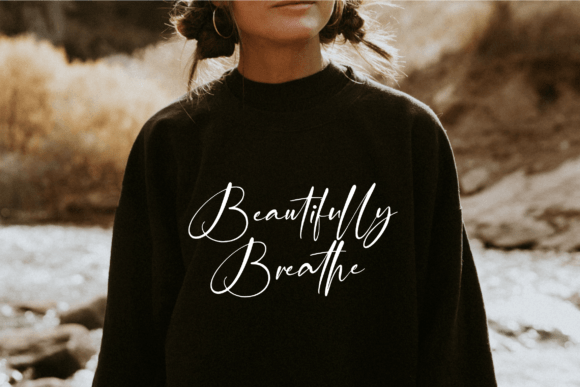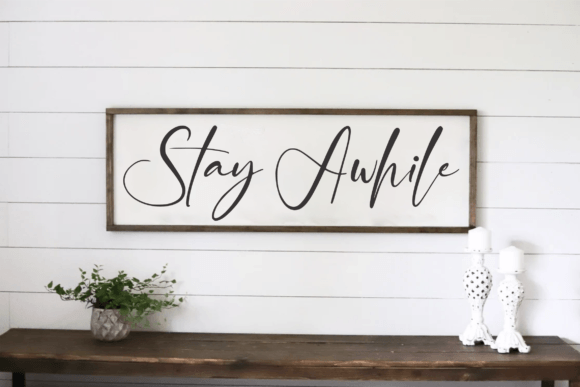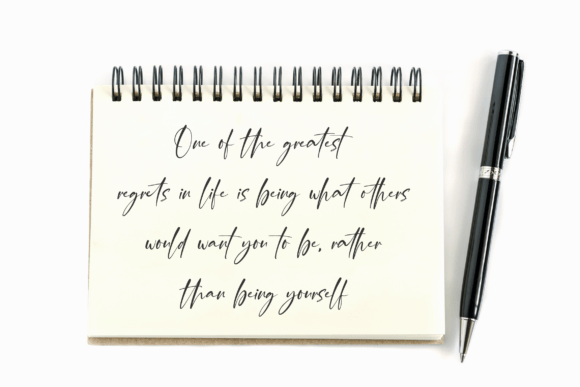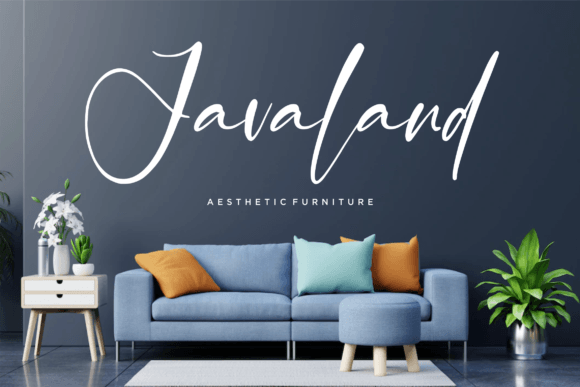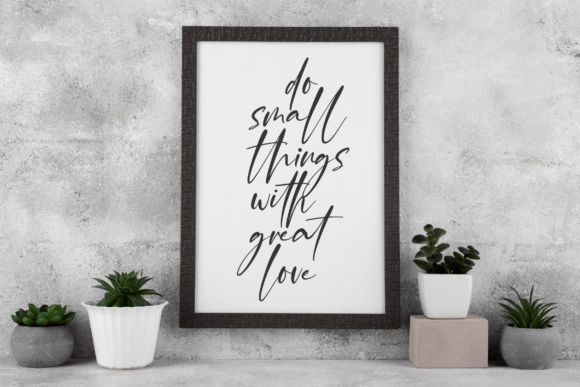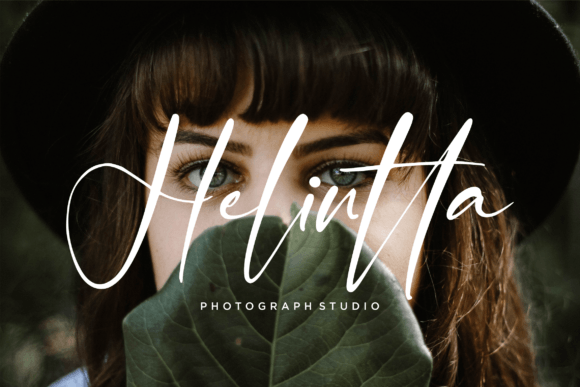
Introducing Hallbothy Font: The Ultimate Handwritten Stylish Font for Creative Projects
In the world of typography, a good font can make all the difference in elevating a design project from ordinary to extraordinary. For designers, crafters, and DIY enthusiasts, finding the perfect font that combines style, elegance, and versatility can be a daunting task. However, if you’re looking for a handwritten stylish font that can add a touch of sophistication and whimsy to your projects, look no further than Hallbothy Font.
What is Hallbothy Font?
Hallbothy Font is a beautifully crafted handwritten font that exudes elegance and charm. Its unique and stylish lettering makes it perfect for a wide range of creative projects, from product packaging and branding to magazines, social media, weddings, and more. Whether you’re looking to add a personal touch to your designs or create a lasting impression, Hallbothy Font is the perfect choice.
Key Features of Hallbothy Font
- Handwritten Style: Hallbothy Font boasts a beautiful handwritten style that adds a touch of warmth and personality to any design project.
- Versatility: This font is incredibly versatile and can be used for a wide range of projects, from formal to informal, and from digital to print.
- Elegant and Whimsical: Hallbothy Font strikes the perfect balance between elegance and whimsy, making it perfect for designers and crafters who want to add a touch of sophistication to their projects.
- Easy to Read: Despite its stylish and handwritten nature, Hallbothy Font is incredibly easy to read, making it perfect for body text and headlines.
Use Cases for Hallbothy Font
Hallbothy Font is perfect for a wide range of creative projects, including:
- Product Packaging: Add a touch of elegance and sophistication to your product packaging with Hallbothy Font.
- Branding Projects: Create a lasting impression with Hallbothy Font, perfect for logos, business cards, and more.
- Magazines and Editorials: Use Hallbothy Font to add a touch of whimsy and elegance to your magazine and editorial designs.
- Social Media: Elevate your social media designs with Hallbothy Font, perfect for graphics, quotes, and more.
- Weddings and Events: Make your wedding or event stationery truly special with Hallbothy Font.
Why Choose Hallbothy Font?
With so many fonts available, why choose Hallbothy Font? Here are just a few reasons why designers and crafters love Hallbothy Font:
- Unique and Exclusive: Hallbothy Font is a unique and exclusive font that will make your designs stand out from the crowd.
- High-Quality: Hallbothy Font is a high-quality font that is designed to deliver exceptional results.
- Easy to Use: Hallbothy Font is incredibly easy to use, even for those who are new to design.
| Font Name | Hallbothy Font |
| Author | qwrtypefoundry |
In conclusion, Hallbothy Font is a beautifully crafted handwritten stylish font that is perfect for designers, crafters, and DIY enthusiasts. With its unique and elegant lettering, versatility, and ease of use, Hallbothy Font is the perfect choice for a wide range of creative projects. Whether you’re looking to add a touch of sophistication to your designs or create a lasting impression, Hallbothy Font is the ultimate font for your next project.